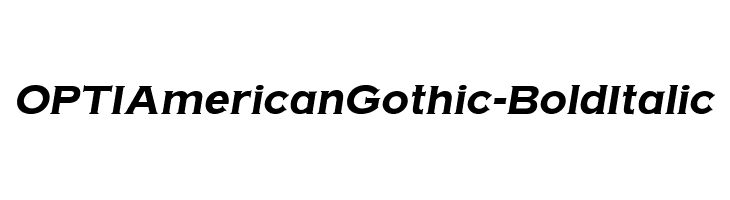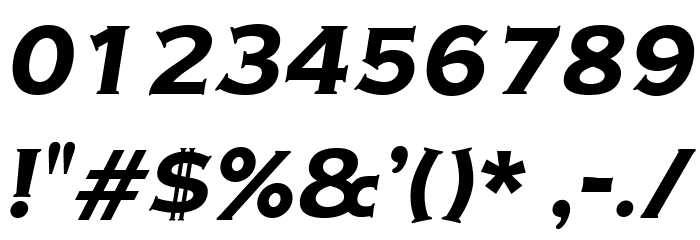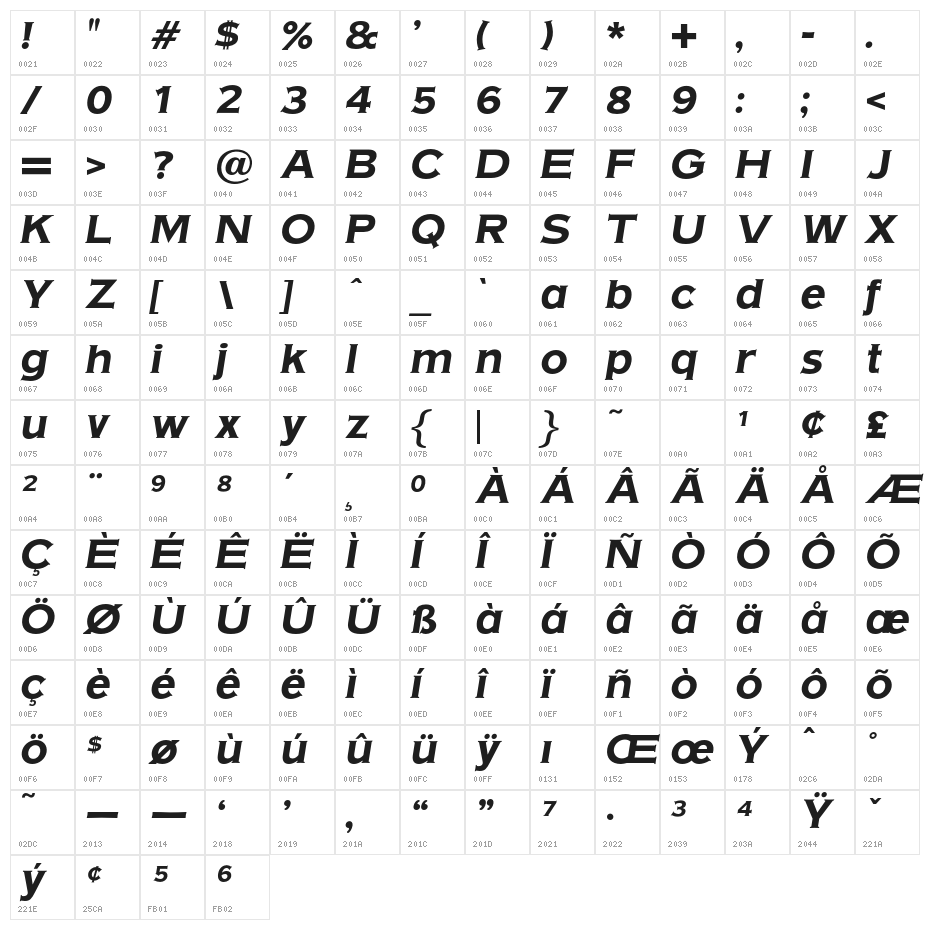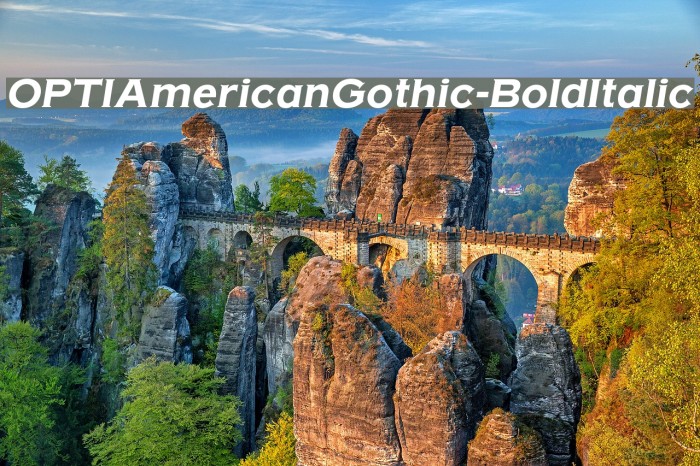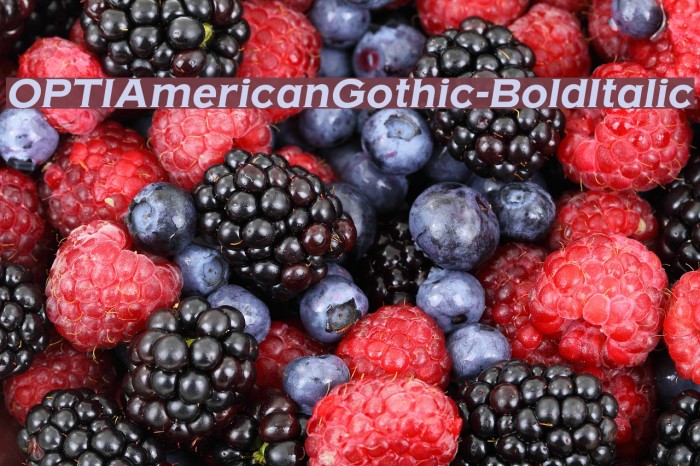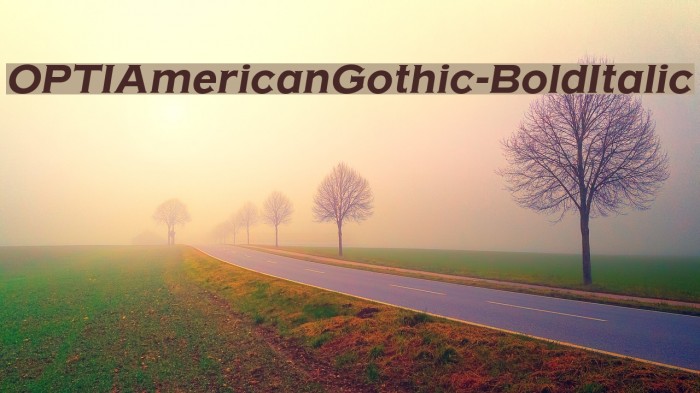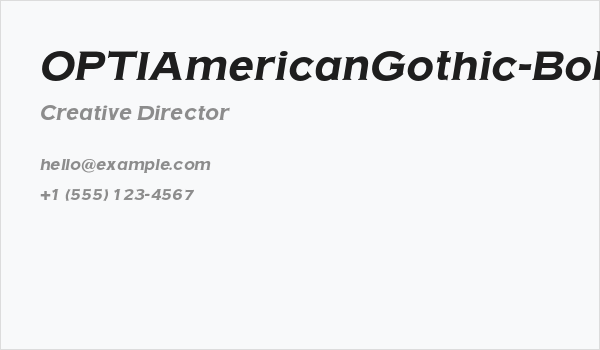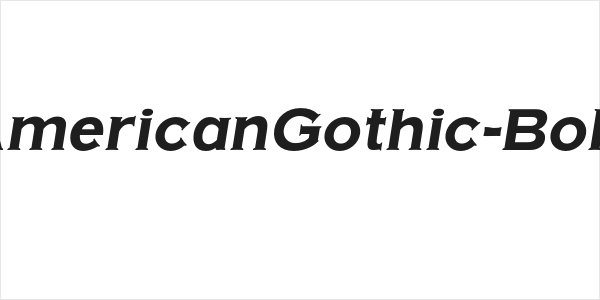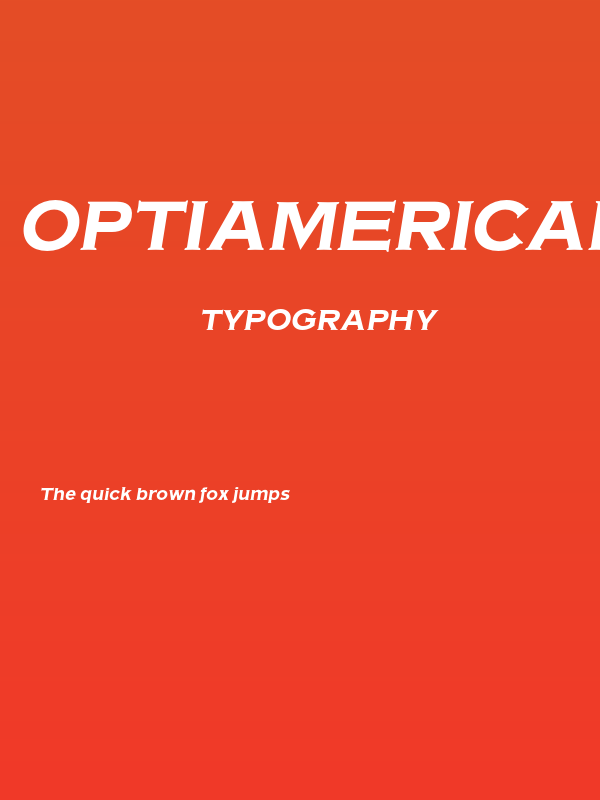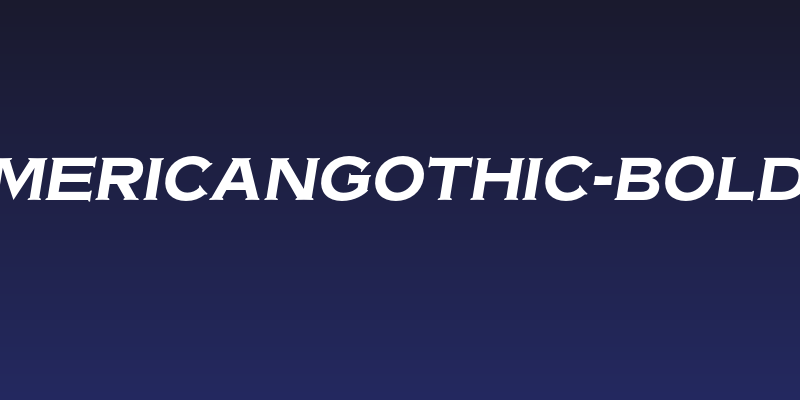
OPTIAmericanGothic-BoldItalic Font
OPTIAmericanGothic-BoldItalic Description
This font features a bold and italicized style, combining strength with elegance. The characters are slightly slanted, adding a dynamic and forward-moving feel. The strokes are consistent in thickness, providing a uniform appearance across all characters. The uppercase letters are prominent and commanding, while the lowercase letters maintain readability with a touch of sophistication. The numerals are clear and well-defined, making them suitable for various applications. Special characters are distinct and integrate seamlessly with the overall design, enhancing versatility.
| Proposed Projects | Ideal for branding, advertising, headlines, and any project requiring a strong yet elegant typeface. |